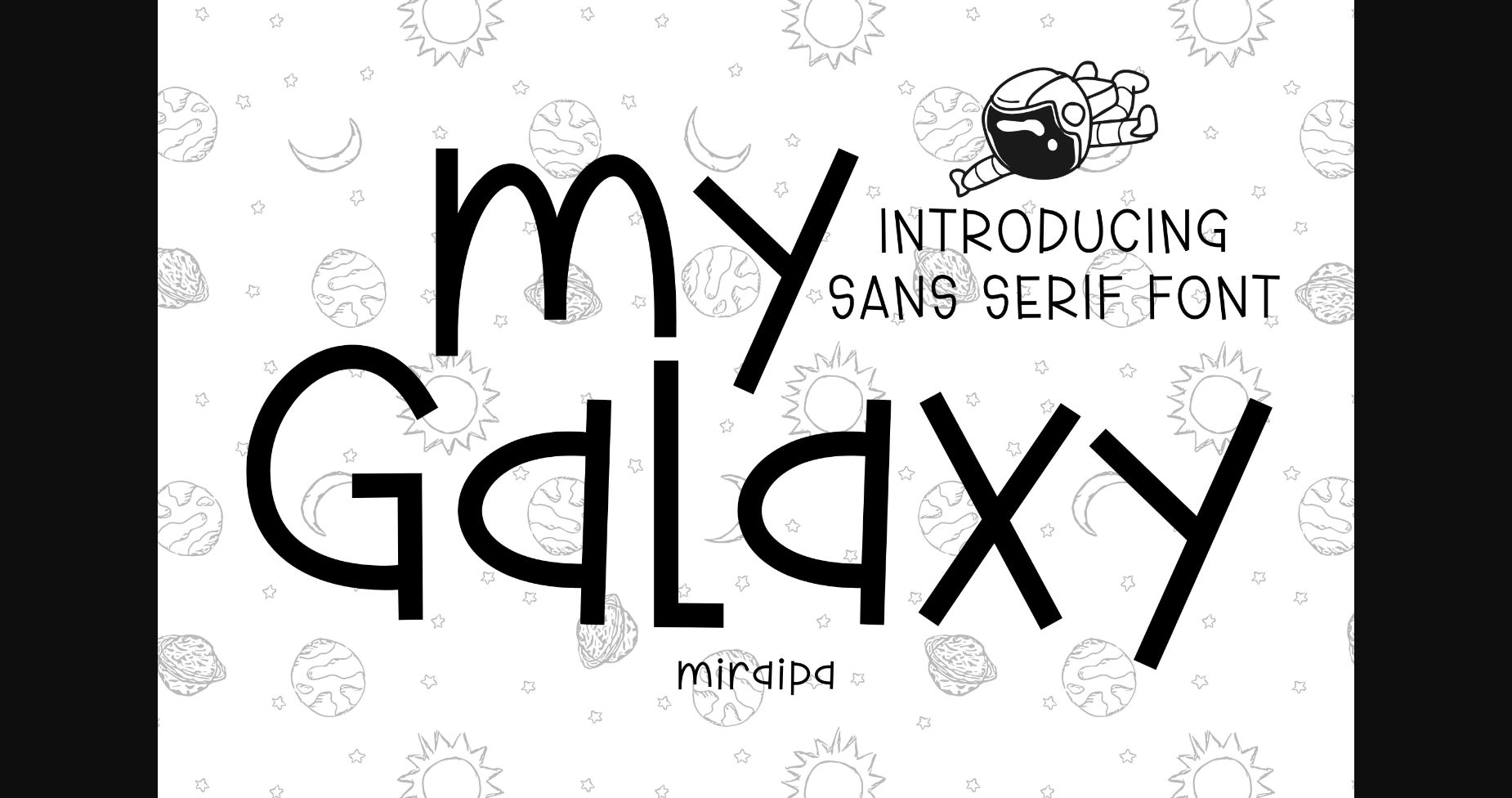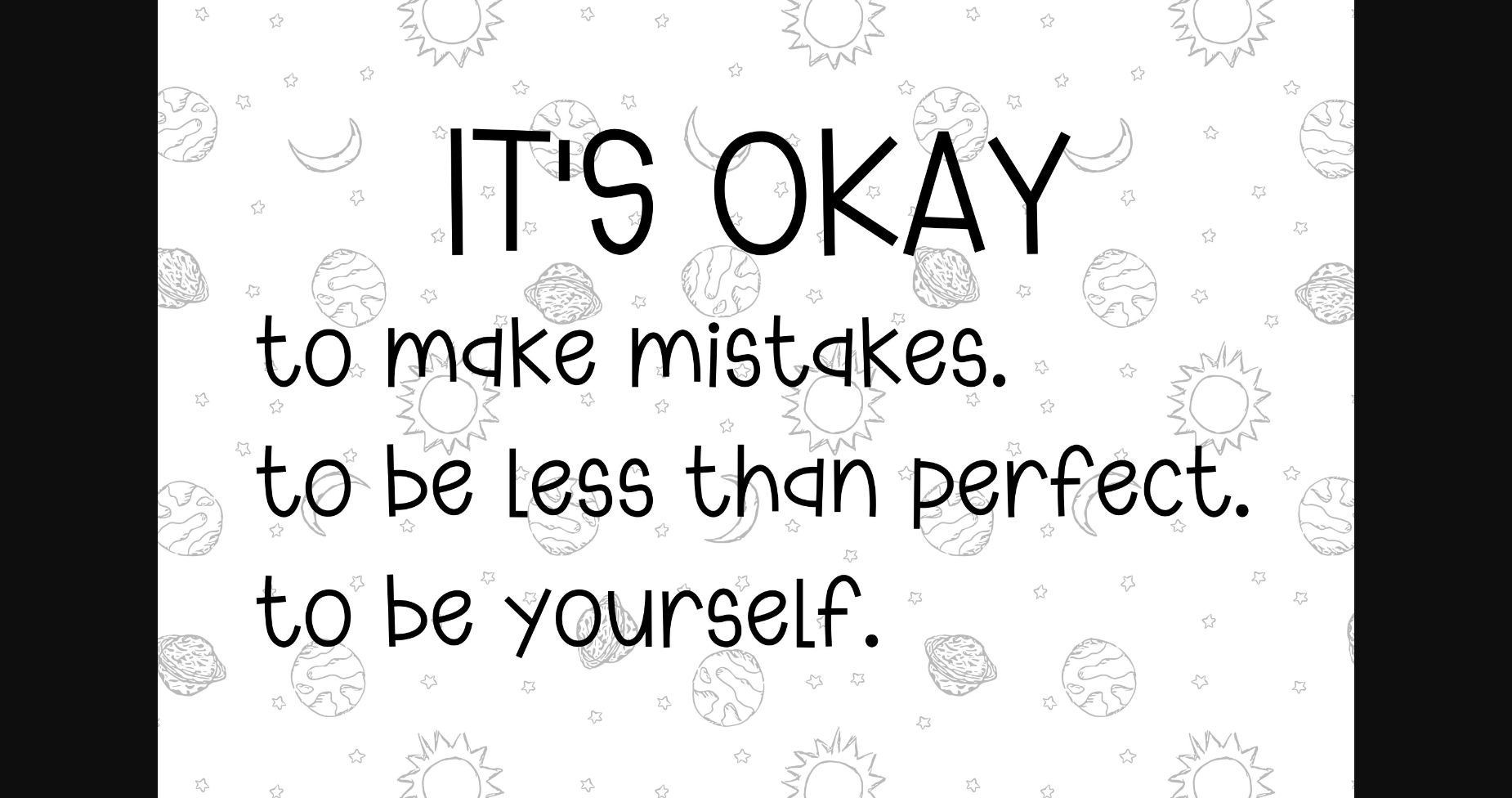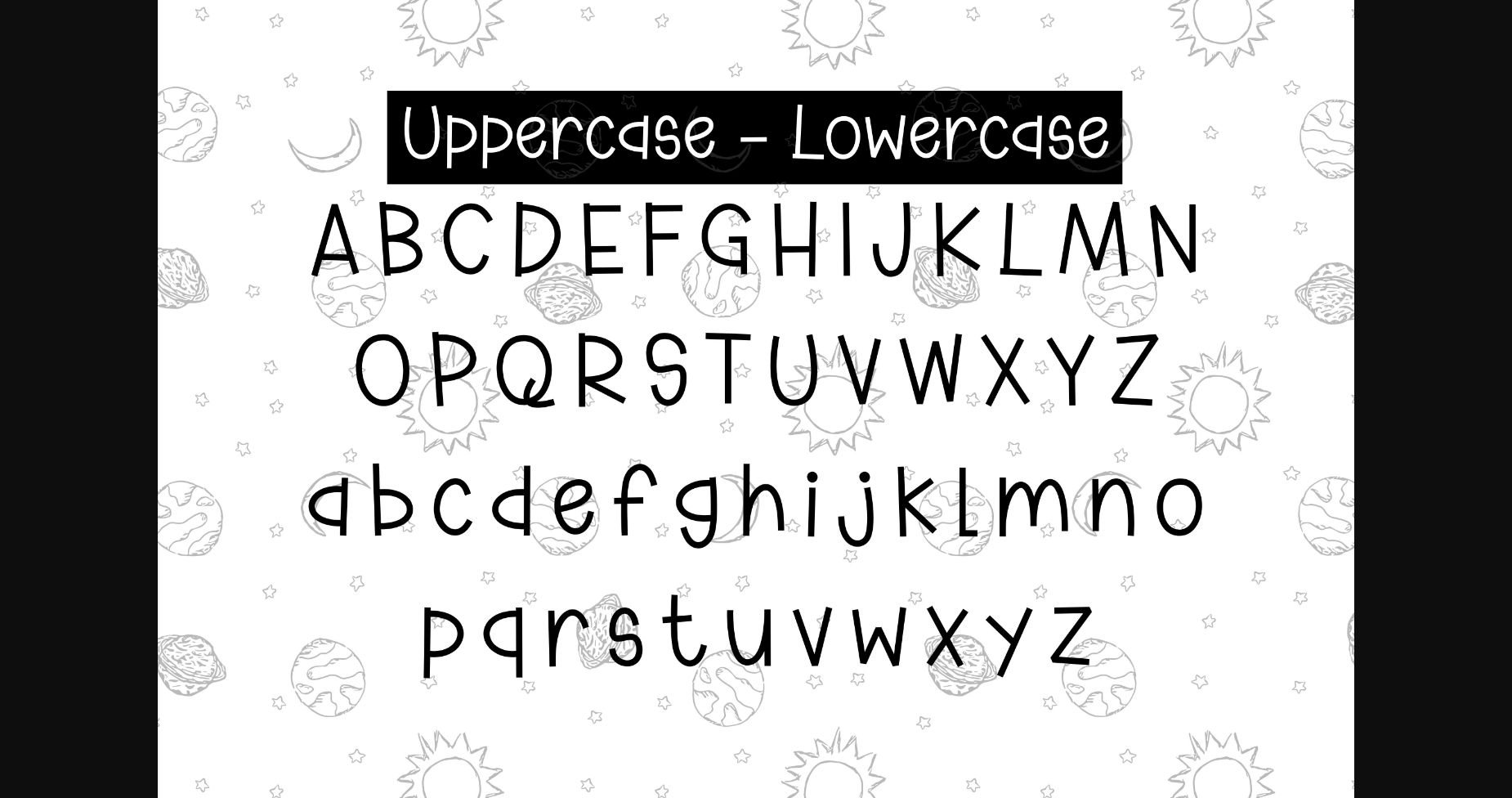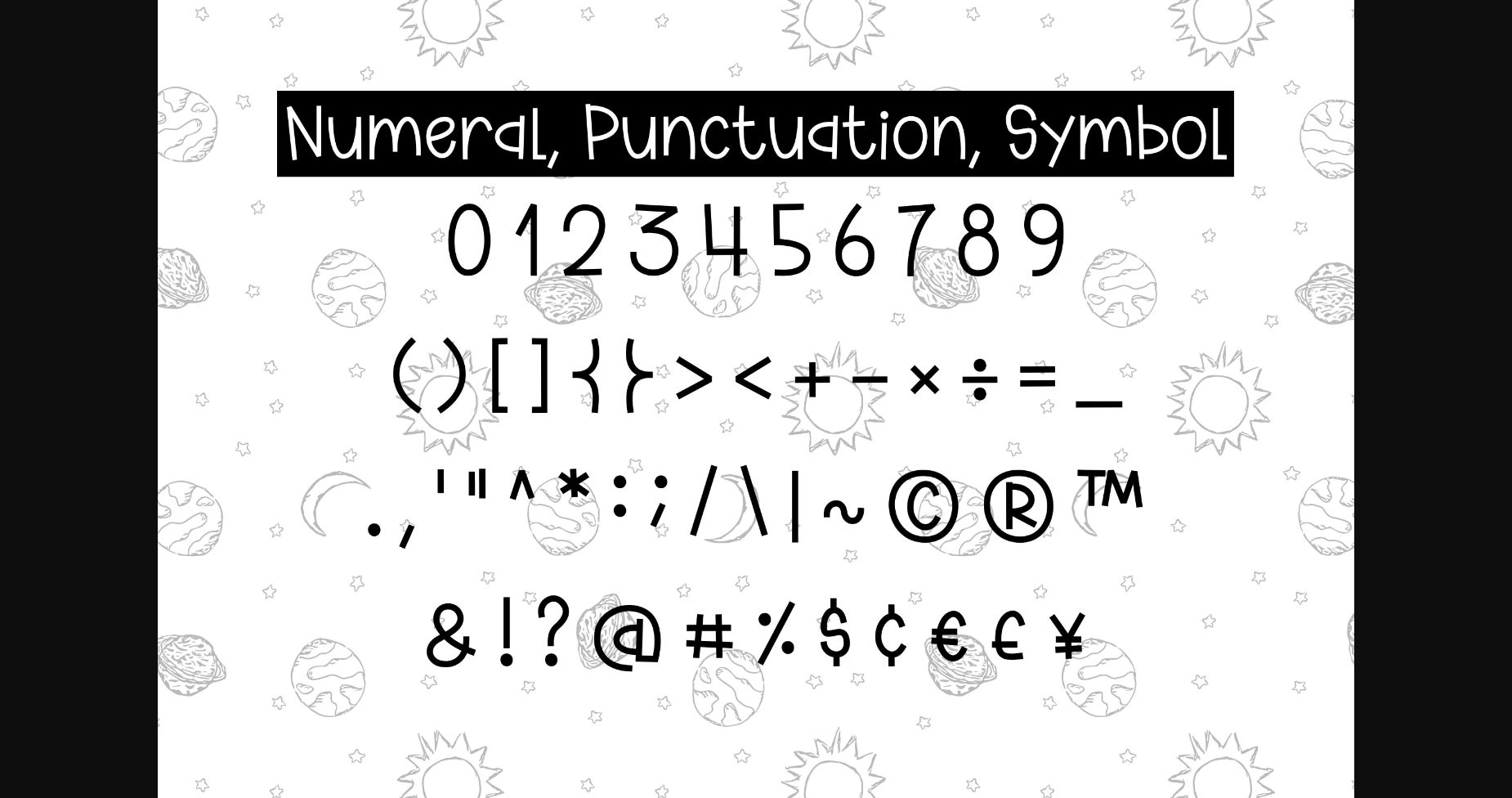
About My Galaxy Font
My Galaxy is a modern sans-serif font that features an intentionally unbalanced design, with letter shapes that appear to be slightly askew. The bold and clean lines of the letters create a sense of strength and confidence, while the uneven design adds a touch of edginess and uniqueness. This font is perfect for creating distinctive branding materials, headlines, and editorial layouts.